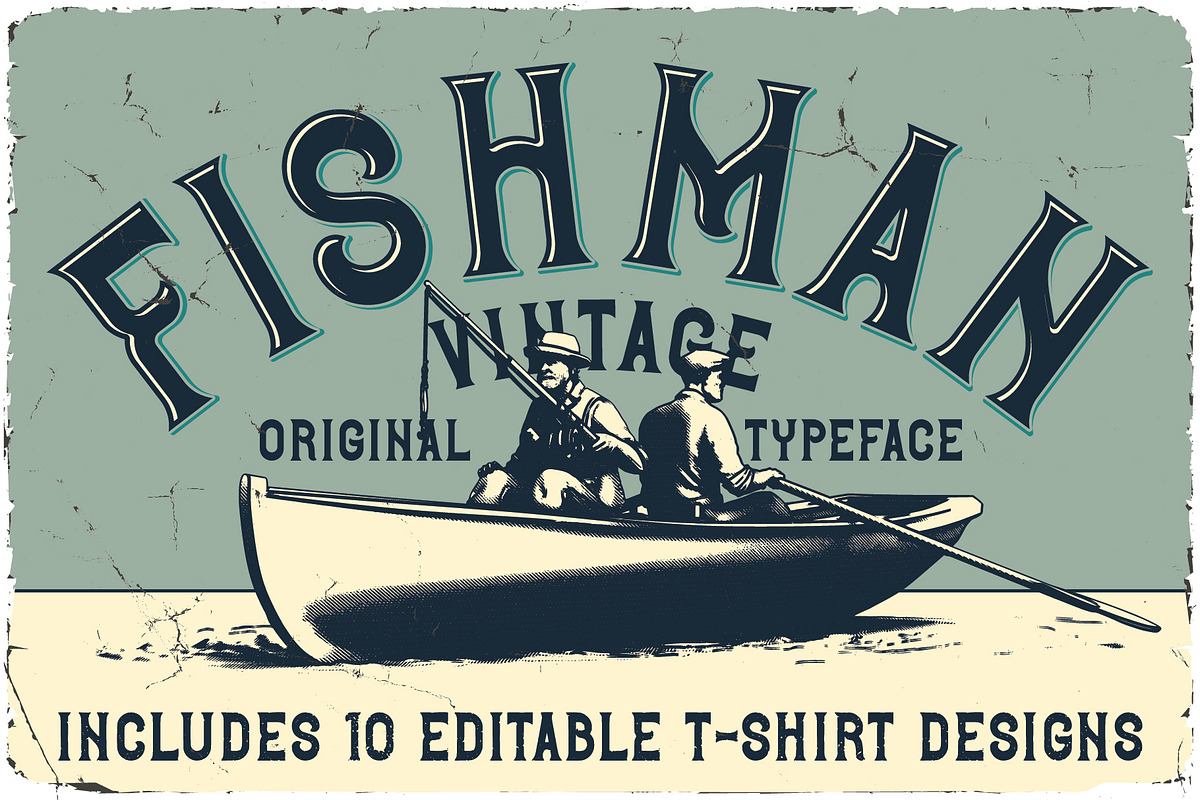
Fishman Vintage Font Free Download is a rugged and nostalgic typeface inspired by classic signage, retro packaging, and the bold spirit of vintage Americana. With strong letterforms and a weathered aesthetic, this font is perfect for logos, badges, apparel, and old-school branding with serious character.
Crafted to look hand-inked and timeworn, Fishman Vintage Font Free Download gives your designs an authentic, gritty edge that feels straight out of a bygone era. It works beautifully on barbershop logos, coffee packaging, surf brand tags, or anything that needs a salty splash of heritage style.
Its bold, condensed structure ensures maximum impact, while the vintage charm adds warmth and depth. Whether you're going for a retro fisherman vibe or a timeless workwear look, this font reels in the attention.
Drop this anchor into your type toolbox and let Fishman give your designs that weathered, sea-worn soul.